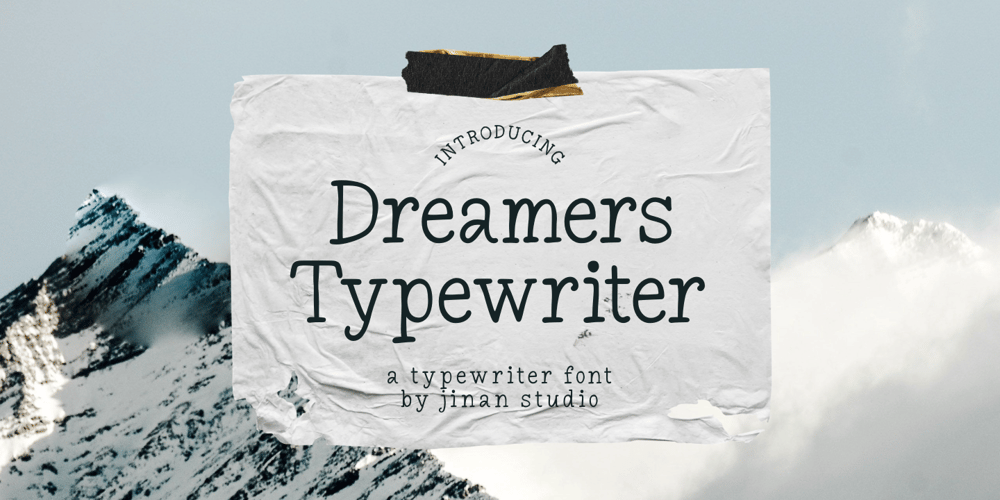
Dreamers Typewriter Font Family was designed by Andi Syahdang, Ainun Jinan and published by Jinan Studio. Dreamers Typewriter contains 1 styles and family package options. Unveiling Dreamers Typewriter, a captivating typographic masterpiece that beautifully fuses vintage allure with contemporary readability. Imbue your designs with a nostalgic splash with this font, custom-tailored for projects such as branding, posters, invitations, and the like. Each character stands out with a distinct imperfection, portraying classic typewriter style that injects warmth and charisma into any creative endeavor. Rediscover the charm of the bygone era with Dreamers Typewriter, designed to breath life to your artistic expressions.Features A set of uppercase and lowercase glyphs Number, symbol, and punctuation Multilingual Support